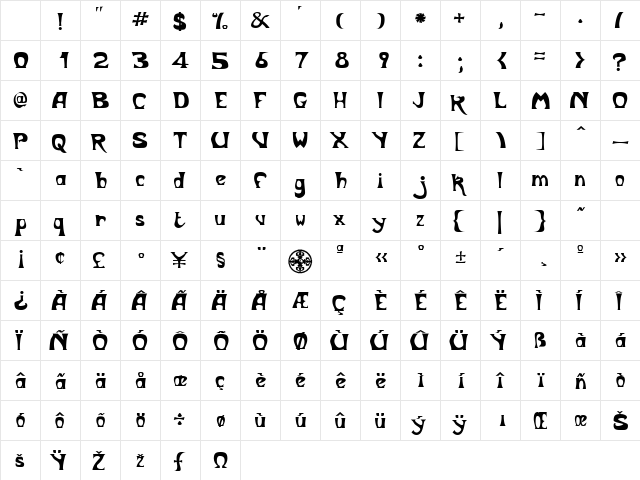
Metropolitain Regular Free Font
Metropolitain Regular
Design Context for Metropolitain
Metropolitain is a composed and adaptable typeface that performs quietly and consistently across a wide range of design contexts.